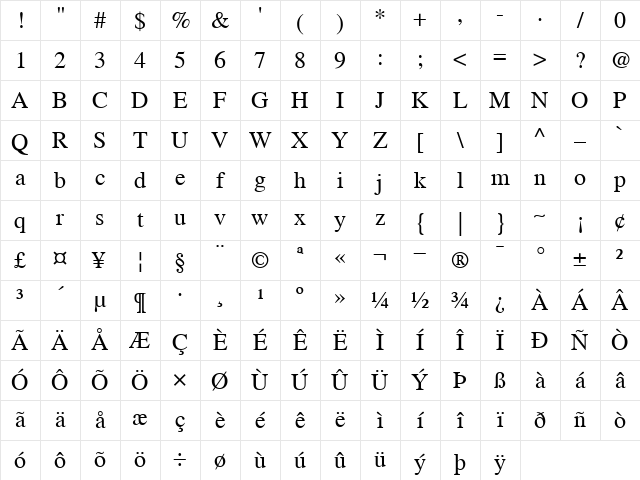
TimesRoman Roman
Complete TimesRoman Roman glyph index. Displaying only characters natively supported by TimesRoman Roman font.
Design Context for TimesRoman
TimesRoman is a composed and adaptable typeface that performs quietly and consistently across a wide range of design contexts.
Pro Tip: Use TimesRoman in both headline and body roles to test its range before committing to a single application.